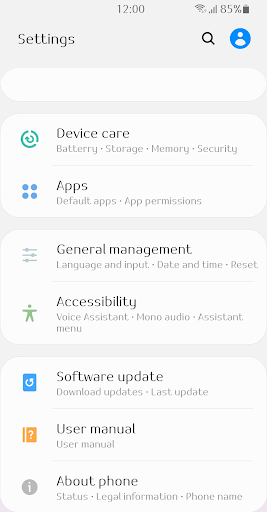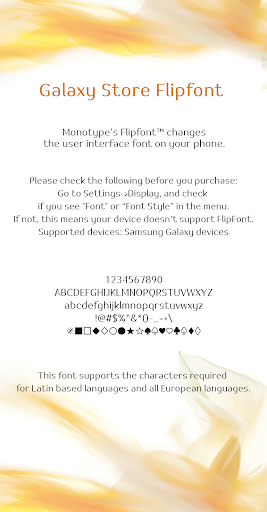
ZFVanilla
It is a sans serif typeface with a soft, stable feel.
The difference in thickness between the horizontal and vertical strokes has been used to create a comfortable and stable posture and to optimise the reading of text.
You smell soft and sweet.
When I'm with you, time seems to stand still and I feel so dreamy.
Soft and sweet, I always want to be with you.
Vanilla I'm in love.